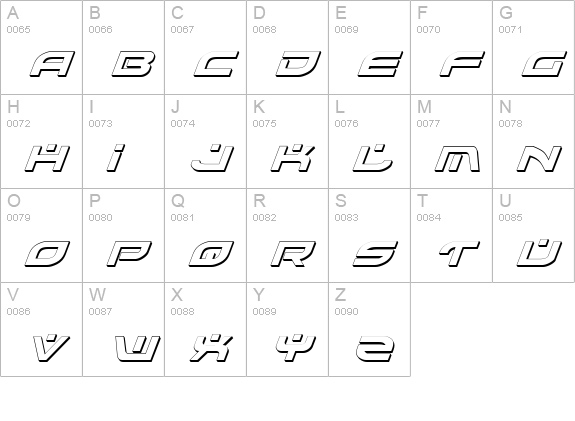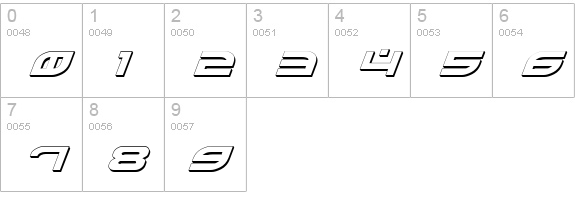
Battlefield Shadow Italic is a distinctive, italic variant in the Battlefield typeface family \xE2\x80\x94 well suited to design and typography projects.
Battlefield Shadow Italic is a stylish and modern font that brings a unique touch to any design project. With its sleek and edgy appearance, this font is perfect for conveying a sense of mystery and intrigue. The italicized style adds a dynamic and elegant look to your text, making it stand out from the crowd. What sets Battlefield Shadow Italic apart is not just its striking design, but also the fact that it is available for free. That's right, you can download this font at no cost from FontsMarket.com. Whether you're working on a personal project or a professional design, this font is a versatile choice that will elevate your work to the next level. Don't miss out on the opportunity to enhance your designs with Battlefield Shadow Italic. Download it today and add a touch of sophistication and creativity to your projects.